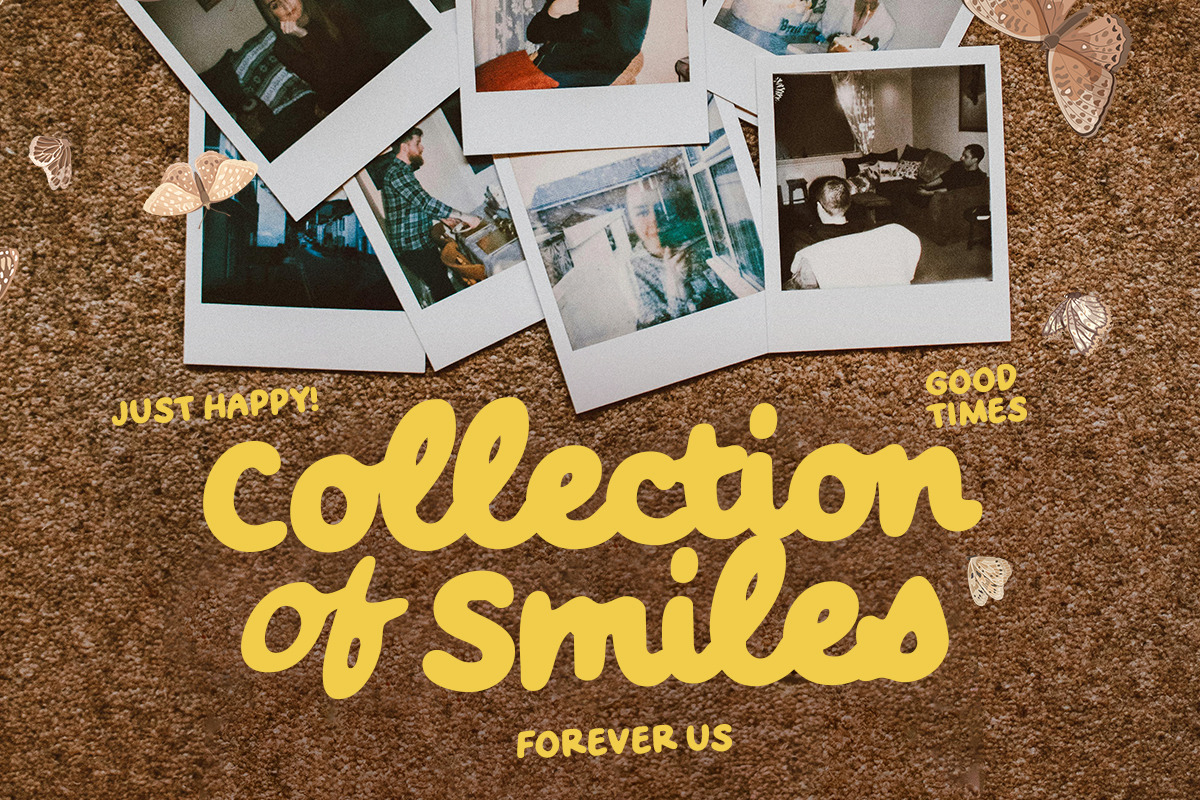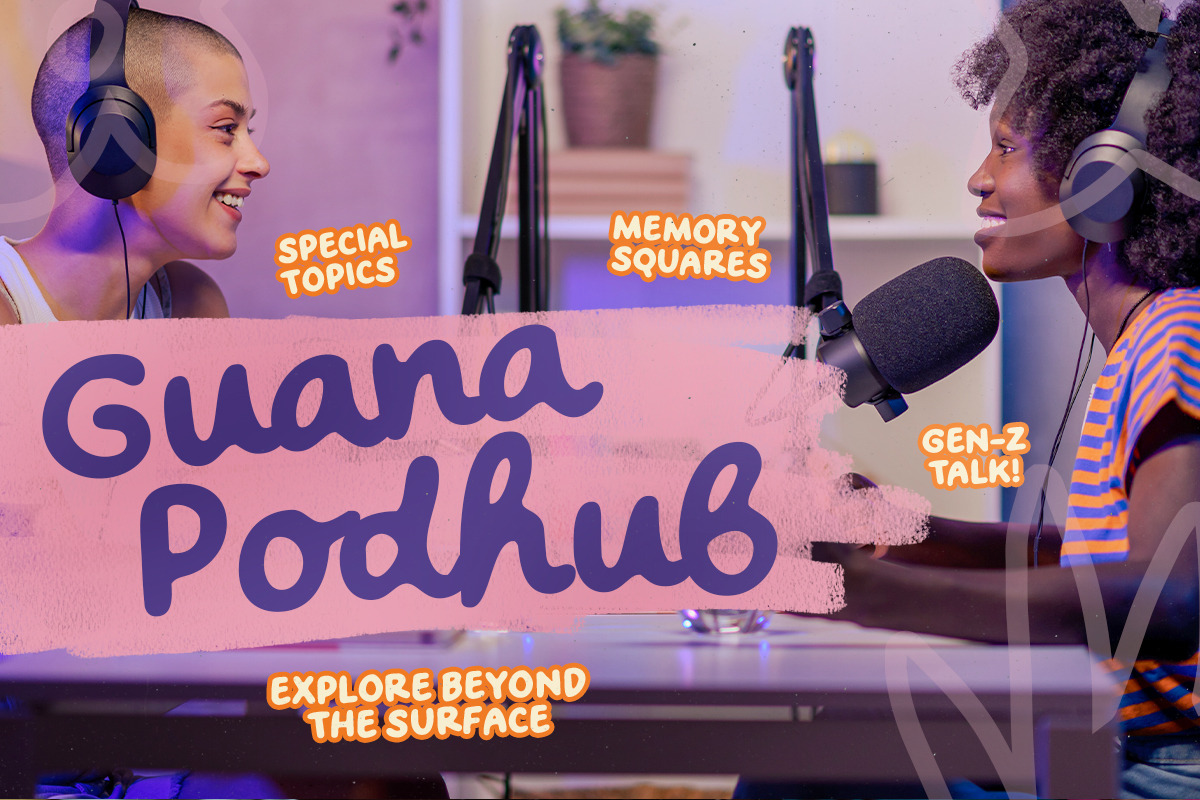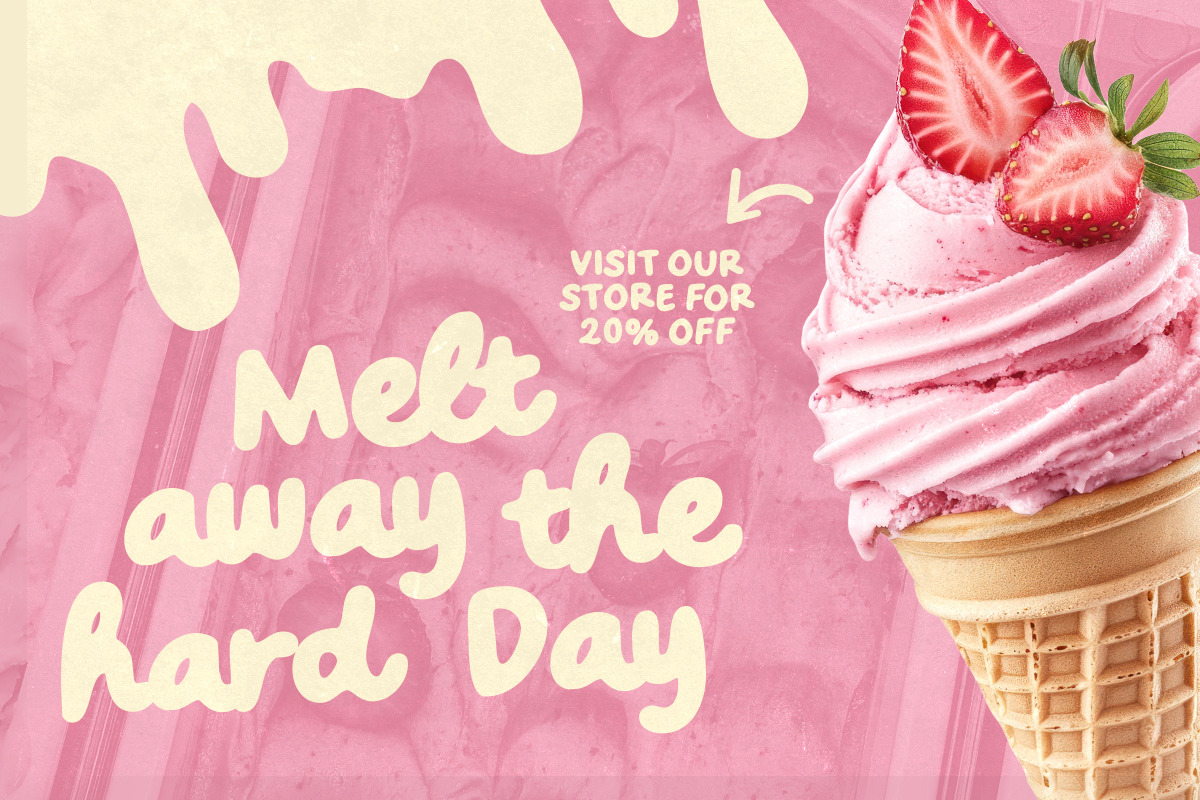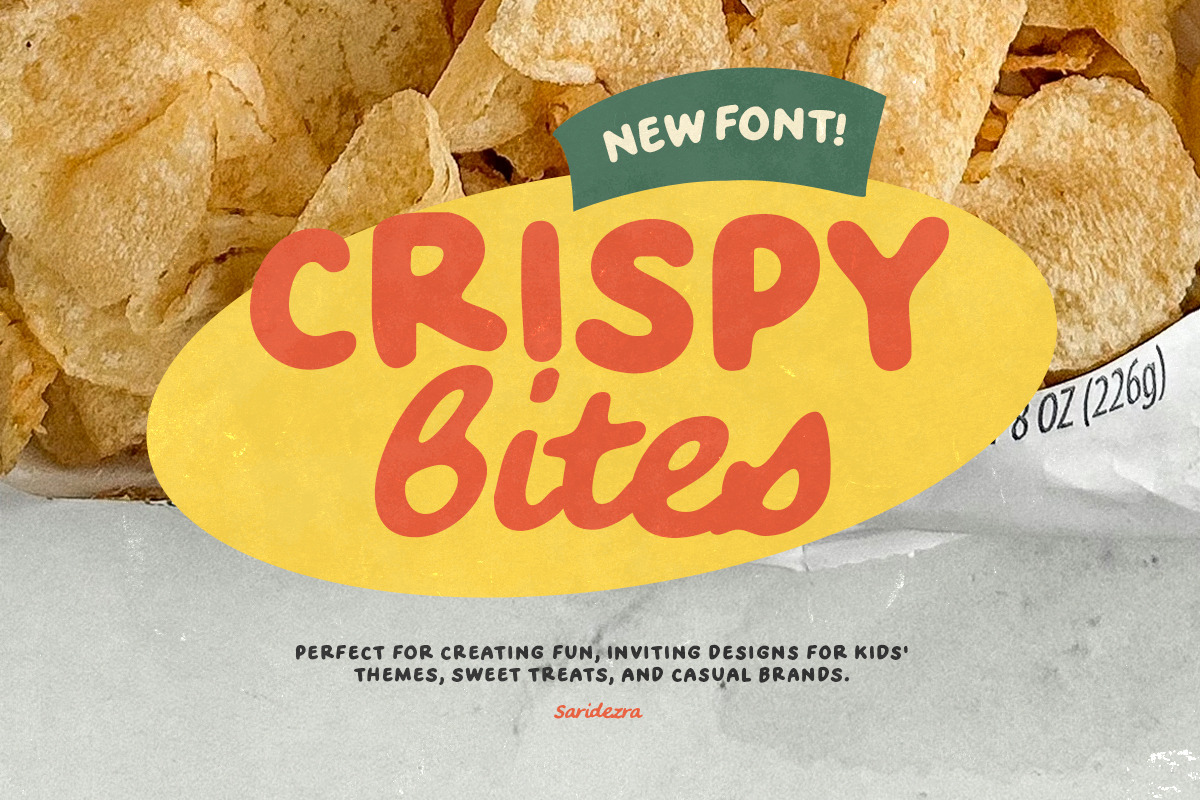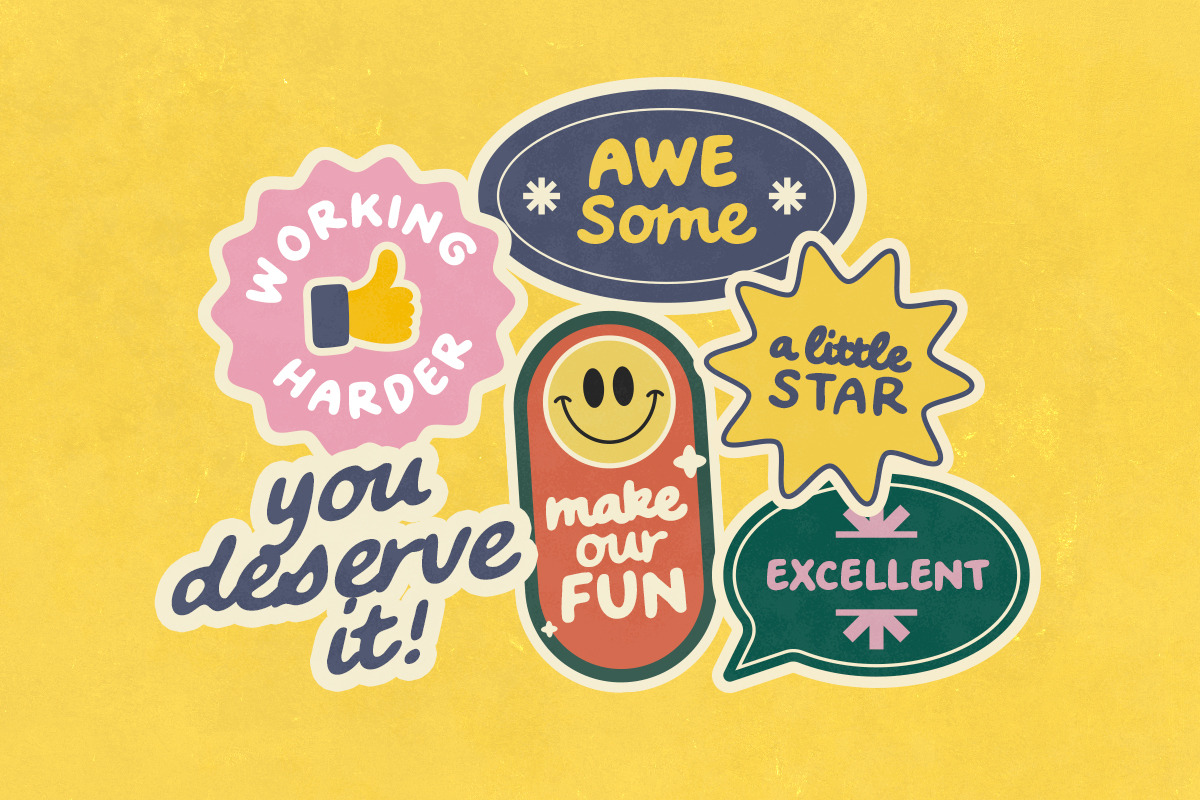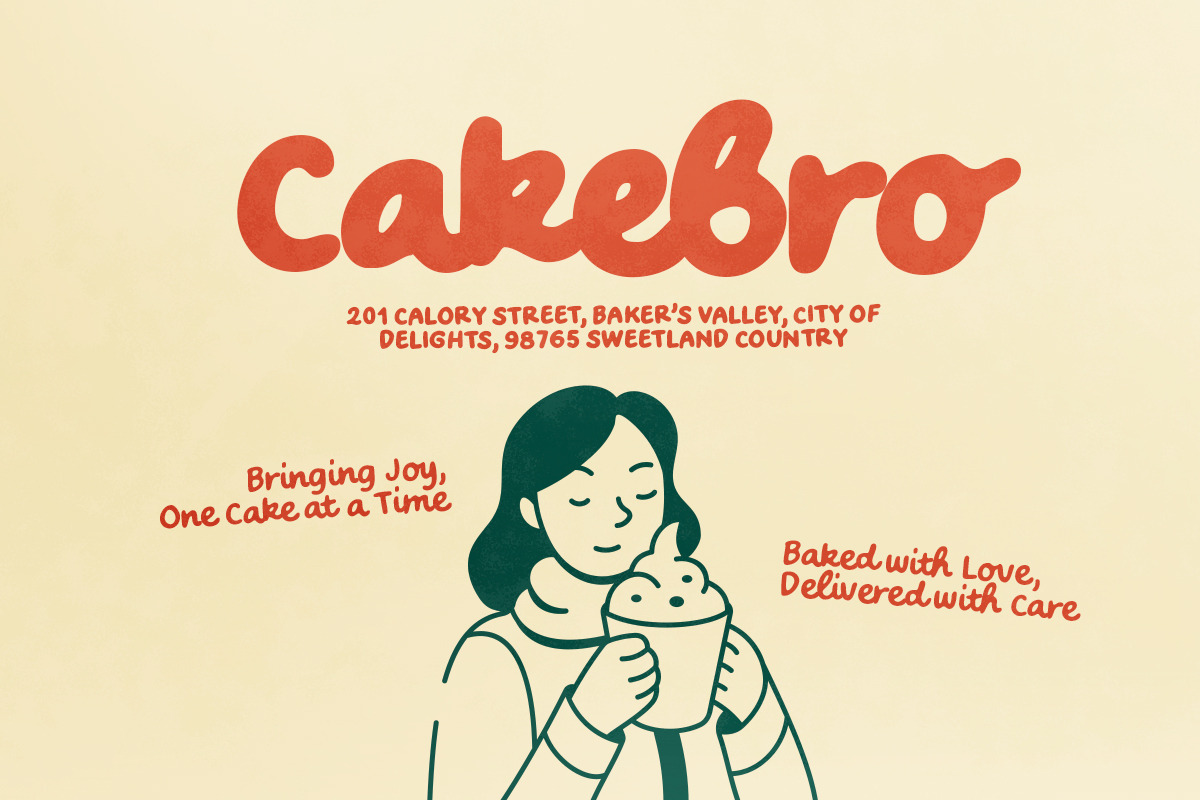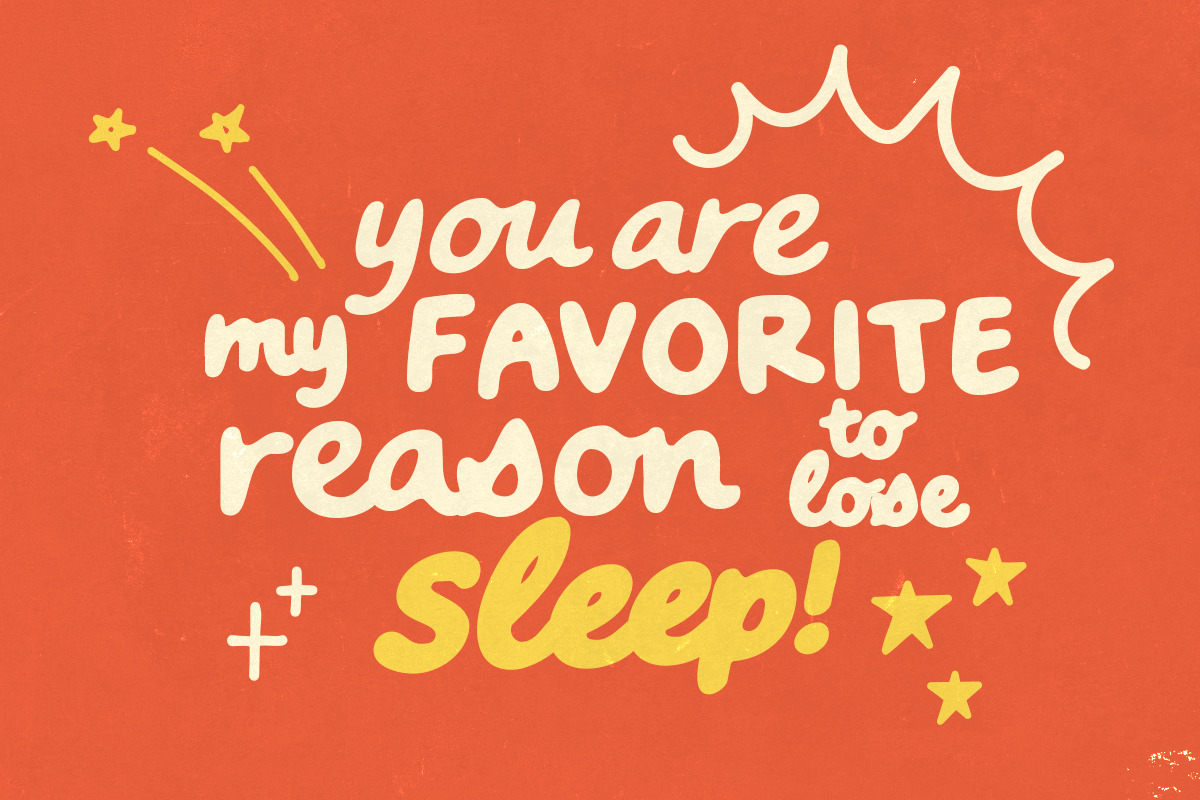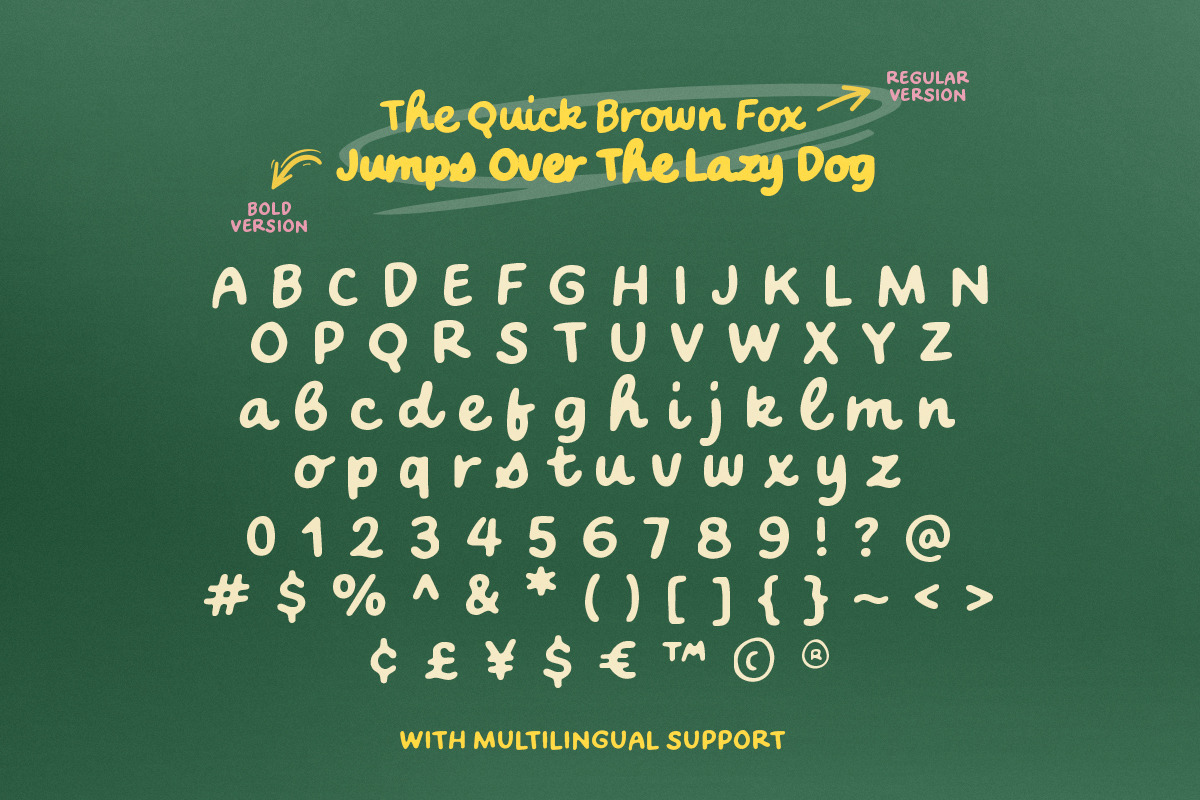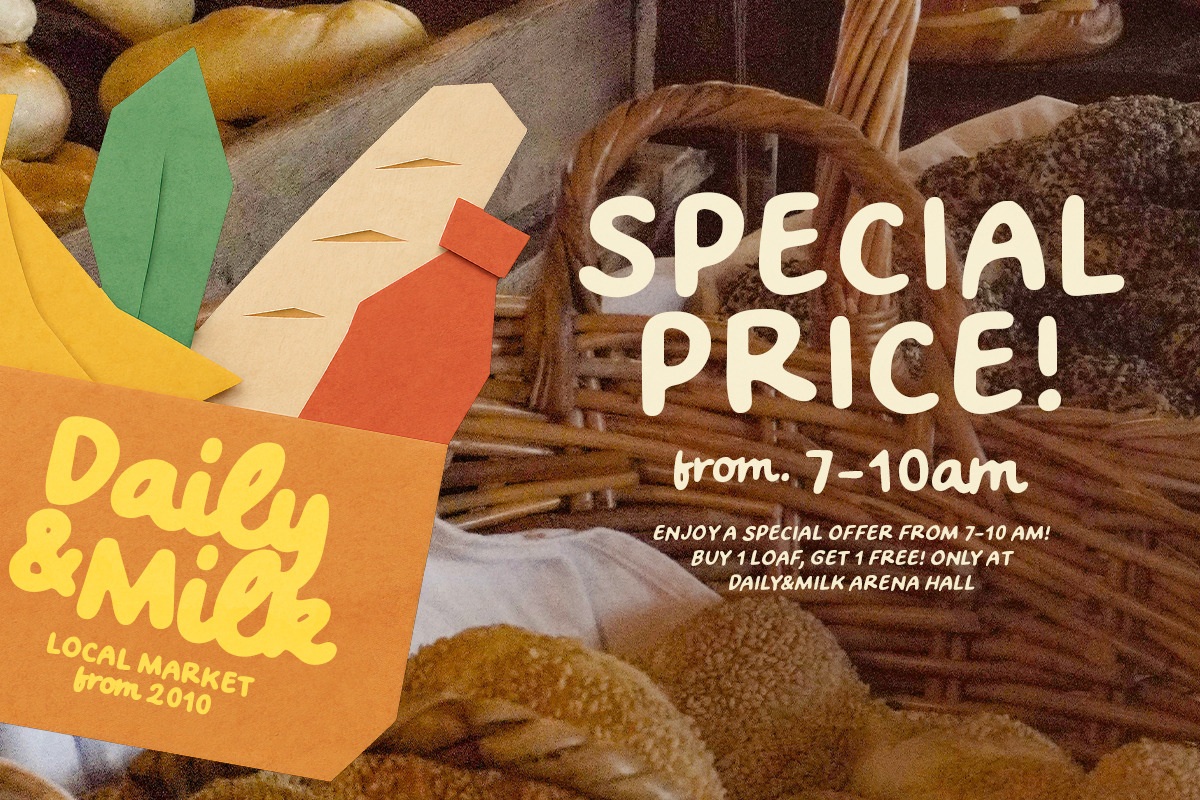
Crispy Bites - Cute Font Family
Crispy Bites is a smooth handwritten family with regular and bold style. This cute fonts is suitable for logo, branding, sticker, quotes, or any project that require cute and kids theme. Crispy Bites also comes with the italic that you can choose for your designs. Come with regular sans in the uppercase, and script in the lowercase will make this font looks like it's font duo. Crispy Bites also support multi language.